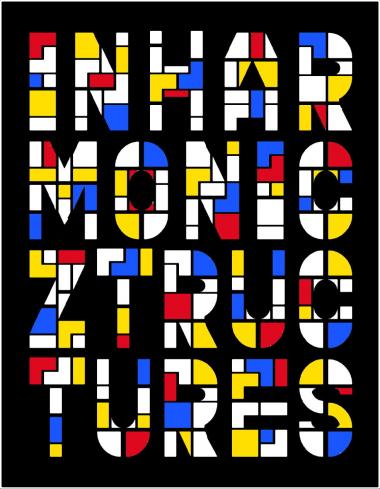
Nice colorful sample, reminiscent of Mondrian and stained glass windows.
The complexity of this design shows up at larger sizes - excellent! 10/10
@elmoyenique: I’ve been wanting to write to say how beautifully this one came together. I can imagine how hard you worked with all the variations to bring it to this sublime place. Too many options of where to place the bricks and breaks! Your sample really brings ztructures to life. 10/10
Great work! I think it was a hard work to place bricks until it fits each other. 10/10
Awesome font! Fonts are structures in their own way, sort of, especially when made with FontStruct. (bricks, hehehe)
I also am a big fan of the artist Mondrian, fell perfectly at home with his squares.